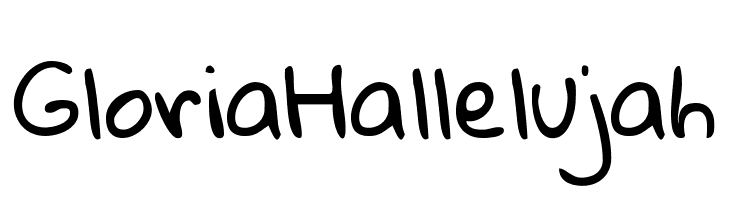
A playful, casual handwritten font with a fun and spontaneous style.
A playful, handwritten font with a casual and friendly style.
A lively and expressive handwritten font with fluid strokes.